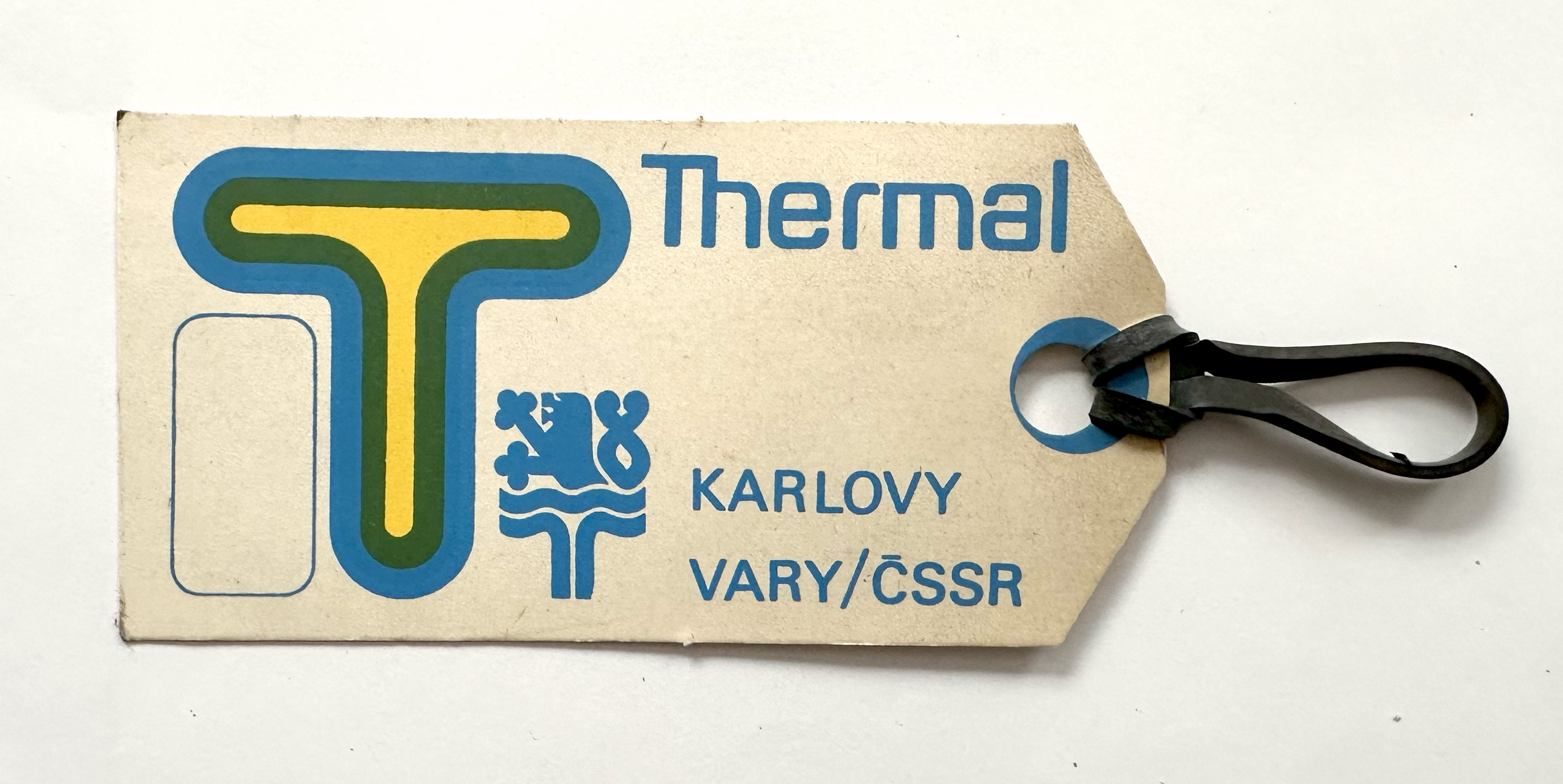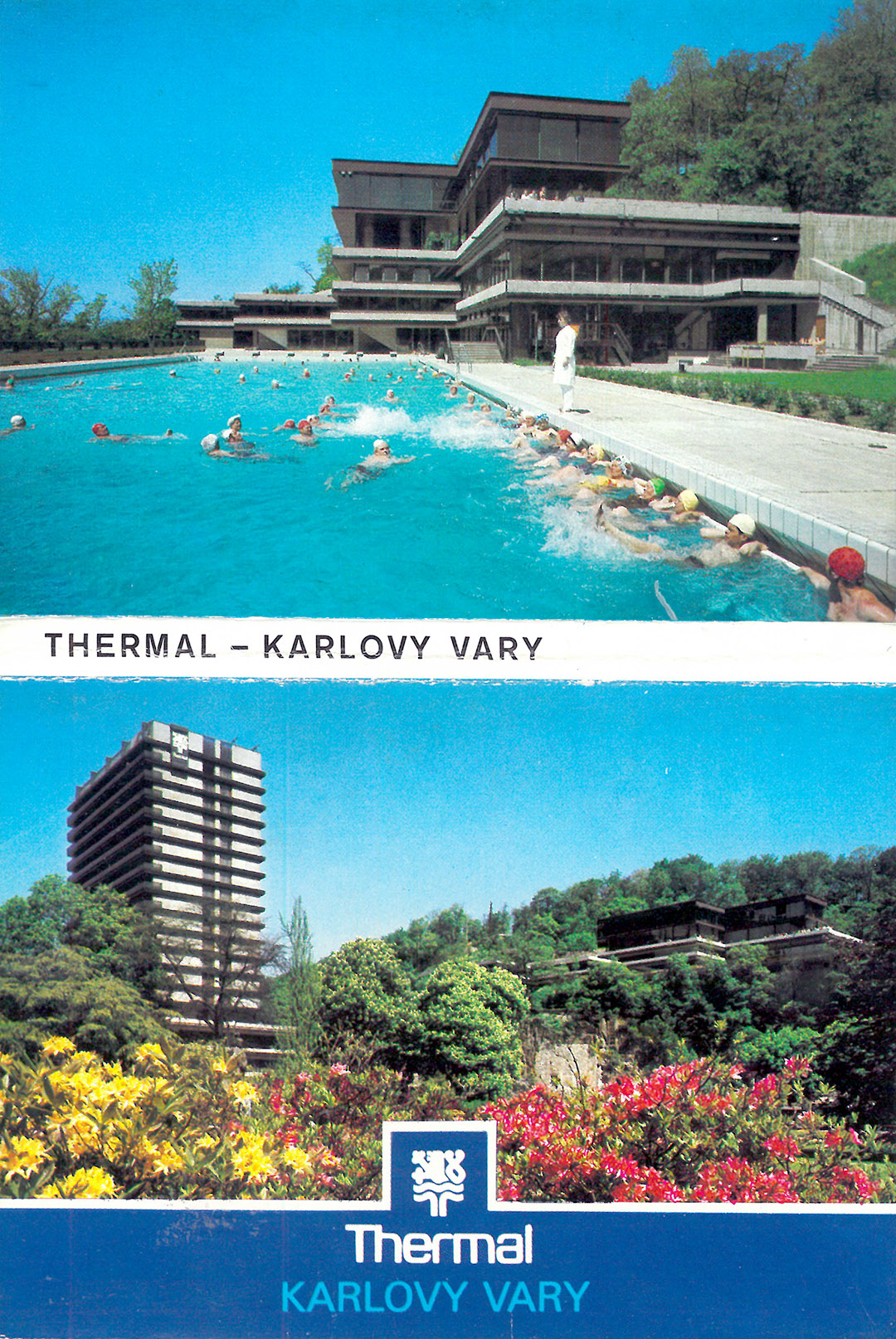
The Thermal Hotel complex in the spa center of the city Karlovy Vary is considered an extraordinary achievement of 1960s Czechoslovak architecture. It was conceived of by its creators as a center for the famous International Film Festival that would be open to the city. One of the pinnacles of domestic Brutalism, it is in its essence a total work of art, in which diverse artistic disciplines from architecture to design to typography and fine art complement each other harmoniously.
In the mid-1960s, an architectural competition was announced for the construction of the Thermal Hotel. The jury selected a design by the husband and wife team of Věra and Vladimír Machonin, prominent Czech architects working at the time at Ateliér Alfa. The entire hotel and festival center complex, built between 1968 and 1977, was conceived as a composition of differently sized and differently designed parts. The most striking of these is the 16-story reinforced concrete tower, 65 meters high, which houses 273 hotel rooms. It connects harmoniously to the horizontal convention area, which serves as a social and cultural center. In addition to the Grand Hall for 1,148 people, which today functions as the main stage for the Karlovy Vary Film Festival, the complex includes two other high-capacity convention and theatre halls for 250 and 300 people. This clear scheme of the division of functions reflects modernist ideas about the building’s clearly-defined operational plan and its formal distinction. The horizontal convention space, accessible from all sides, connects with the surrounding streets thanks to staircases and gently sloping ramps. It thus forms an ideal city-building element that becomes a dynamic social and cultural center, especially during the aforementioned film festival. The hotel also includes an outdoor swimming pool and an attached spa restaurant pavilion with subtle forms contrasting with the massiveness of the main convention building.
Jiří Rathouský was a solid part of the Machonin design team of Hotel Thermal. His graphic work had a strong and prominent place. He always adapted his designs to the type of building.
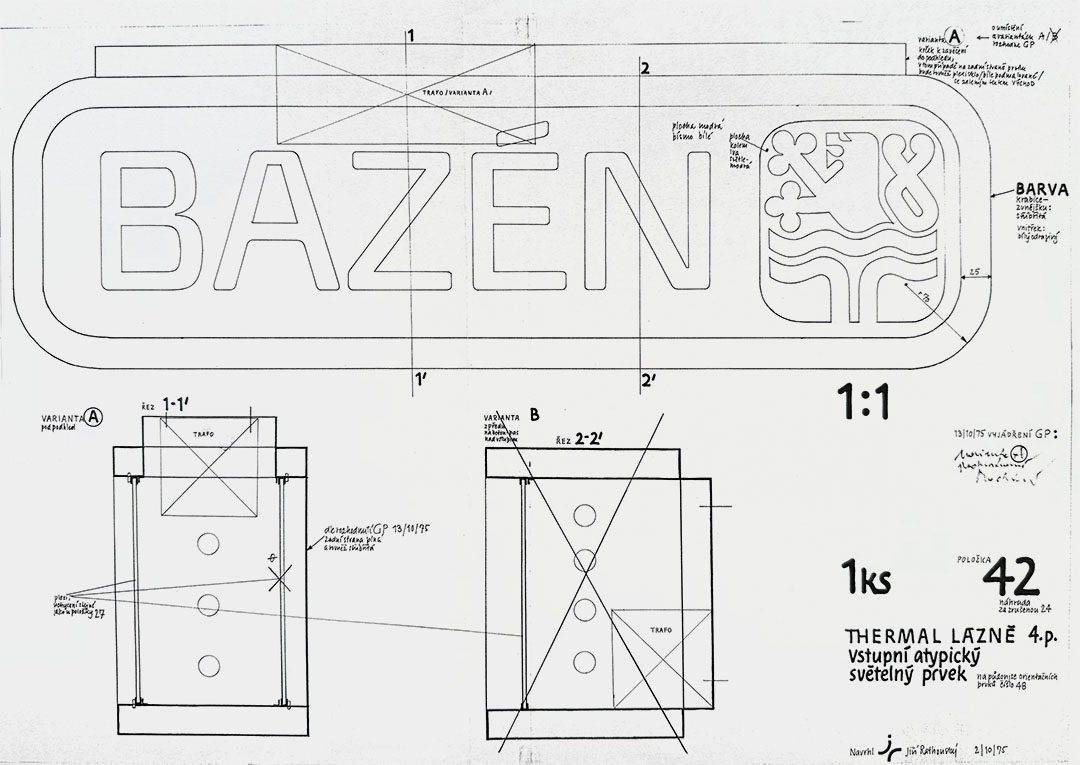
His distinctive language always complemented the architectural structures in an interesting way. Jiří Rathouský often worked with the architects Machonins.
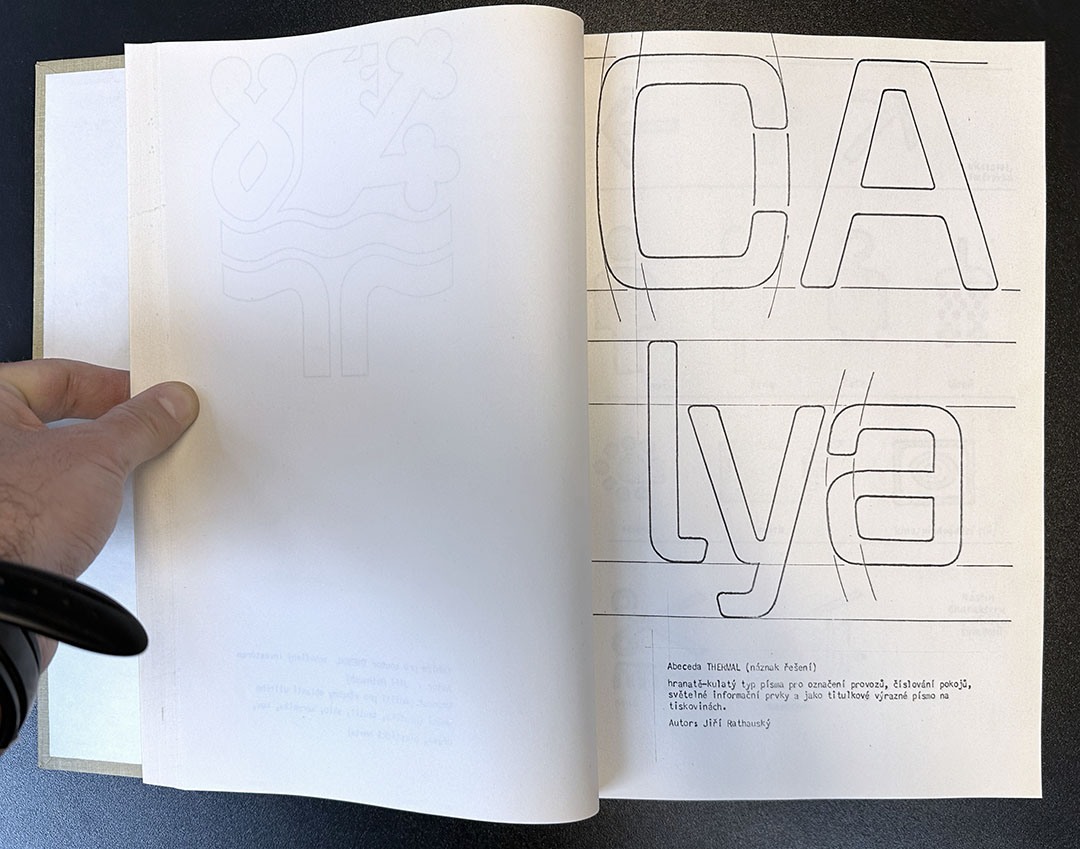
Pieces from the Graphic Design Manual of Hotel Thermal. “Typeface Thermal (design) (the typeface has been renamed to Barell). The square-round typeface for signage, room numbering, illuminated information elements and as a headline typeface on printed materials. Author: Jiří Rathouský.”
Graphic Design Manual of Hotel Thermal collected guidelines and technical drawings of equipment for the purpose of the Thermal units. The authors of the manual were designers: Václav Dolejš, Stanislav Libenský, Věra Machoninová, Dora Novaková, Jiří Rathouský, František Raus. Prague 1974.
It is the monumental concrete and steel architecture that is the building’s most characteristic visual element. The circular volumes of the individual halls form their distinctive formal character, which gives off an almost sculptural impression. In the form of rough concrete surfaces, the influences of the transformations of the era’s modernist architecture resonate, from rational tendencies towards the plasticity of brutalism, defined by the aesthetics of "béton brut" (raw concrete) of the Swiss-French architect Le Corbusier or British brutalist artists such as Denys Lasdun or Peter and Alison Smithson. This raw aesthetic of concrete and steel was the result of the designers’ efforts to make the materials and their surfaces as authentic as possible, without any excess aesthetic or decorative embellishment.
But the Thermal Hotel design is not only exceptional due to its architecture. It is closely intertwined with other art forms to create a resulting total work of art (gesamtkunstwerk). The harmoniously integrated appearance of the hotel is thus completed by the interior design, furniture and lighting design, navigation system and finally distinctive artworks. Věra Machoninová was in charge of the design of the interior elements, especially the furniture and light fixtures, and she imprinted her specific design signature of sculptural shapes, technical details and lively colour solutions. Massive upholstered armchairs of different sizes and colours were placed in various areas of the hotel in different configurations. Věra Machoninová’s unique creations are remarkable for their massive design, which is entirely characteristic of Czechoslovak representative interiors of the 1960s and 70s. The custom-designed furnishings bring expressive liveliness to the brutalist architecture. In keeping with the integrity of the artistic intent, the designers did not forget about integrating an unmistakable navigation system, placed on specially-designed attached tubes, announcement signs and direction signs. Its graphic design, including specific pictograms and a bespoke typeface, was the work of the leading Czech graphic designer Jiří Rathouský, who at the same time designed the navigation systems for the Parkhotel and Hotel Intercontinental in Prague.
At the time, valuable works of art were an integral part of the interiors of various public and administrative buildings, including the Thermal Hotel. For example, glass sculptures by Jaroslava Brychtová and Stanislav Libenský were placed at the colonnade in front of the building itself. The monumental chandelier, made of bent glass rods by René Roubíček, was another distinctive element of the hotel’s public areas. Other valuable artistic elements include sculptures by Miloslav Chlupáč, Vlastimil Květenský, Slavoj Nejdl, Arnošt Paderlík, and others.
Despite inconsiderate alterations, reconstructions and the destruction of some of the art designs of the past three decades, the original architecture and the hotel’s design are still legible and worthy of monument preservation.
Official printed postcard concertina book, the 1970s, author and photographer unknown.
Text by Adam Štěch
Hotel Thermal history